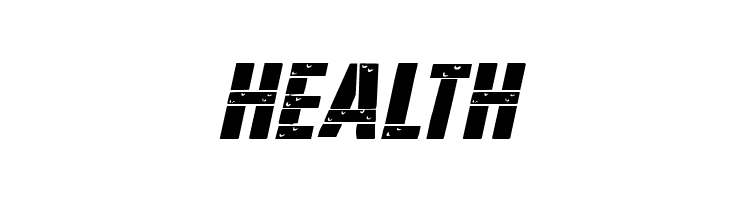
A bold, space-themed decorative font with playful cosmic elements.
A playful, space-themed decorative font with bold, blocky characters.
A whimsical, decorative font with cosmic motifs in each character.